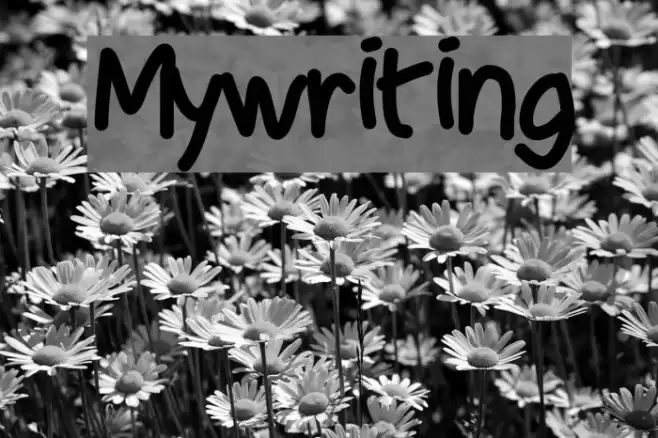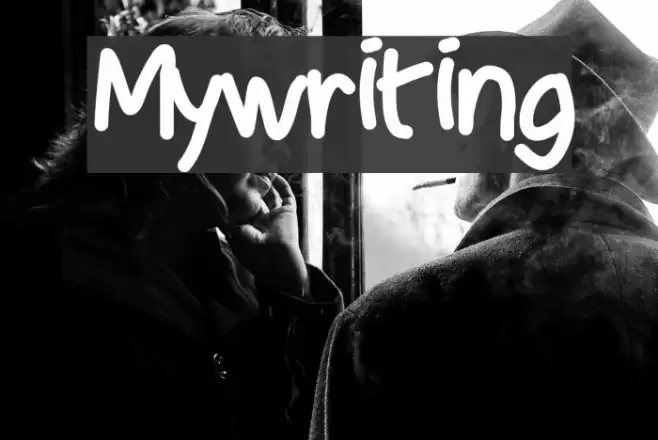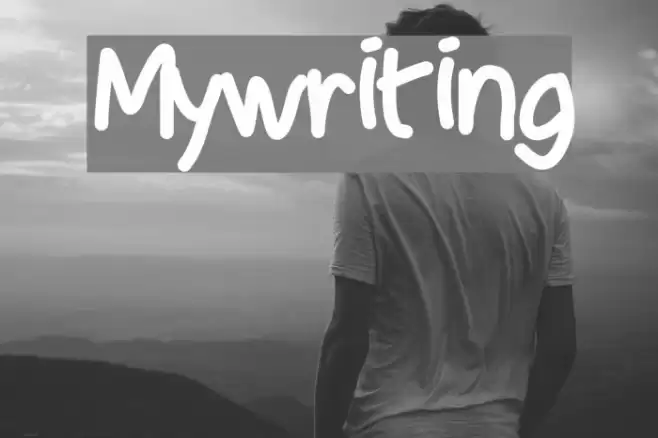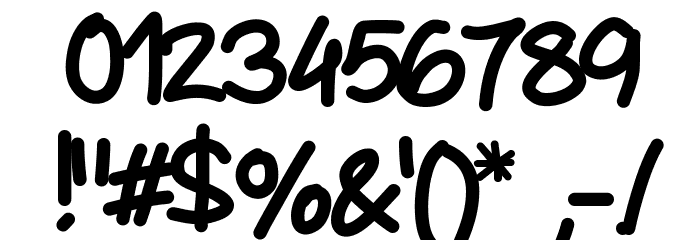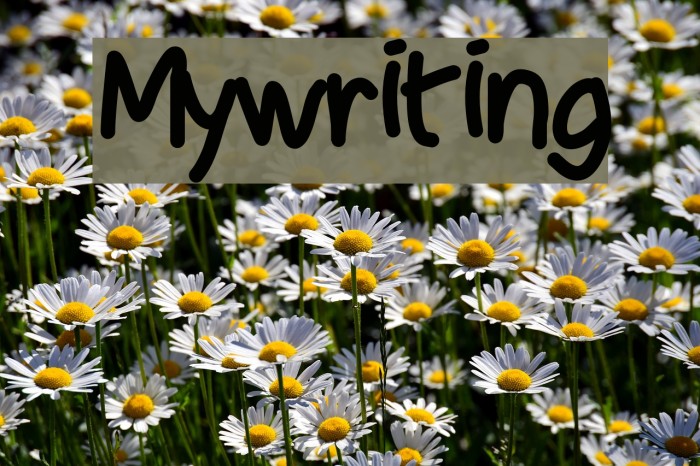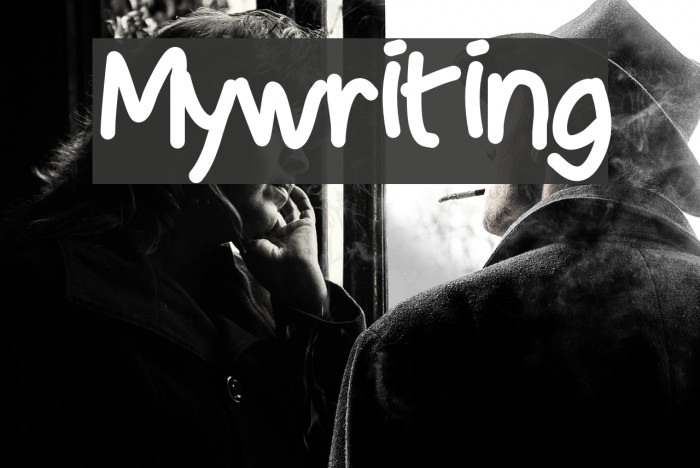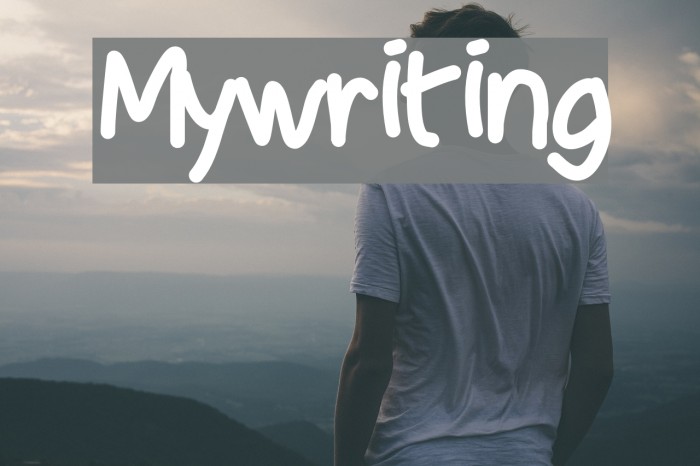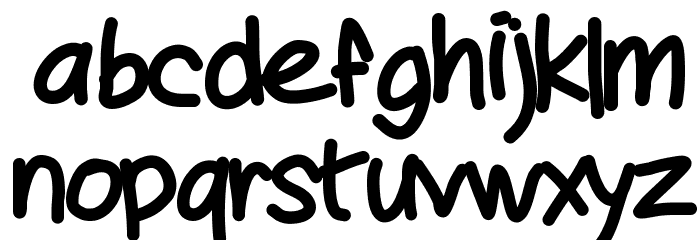
Mywriting Font
Mywriting Description
This font features a playful and casual handwritten style, characterized by its smooth, rounded edges and slightly irregular letterforms. The uppercase and lowercase letters maintain a consistent flow, giving it an informal yet approachable appearance. The numerals and special characters follow the same aesthetic, ensuring a cohesive look across all elements. The strokes are moderately thick, which enhances readability while retaining a friendly and relaxed vibe. This font is ideal for projects that aim to convey warmth and personality, such as personal branding, invitations, or creative posters.
A playful and casual handwritten font with smooth, rounded edges from Uncategorized fonts.
- Proposed Projects: Ideal for personal branding, invitations, creative posters, and informal communications.
- Overall Style: Casual
- Use Case: Logos, Invitations, Posters